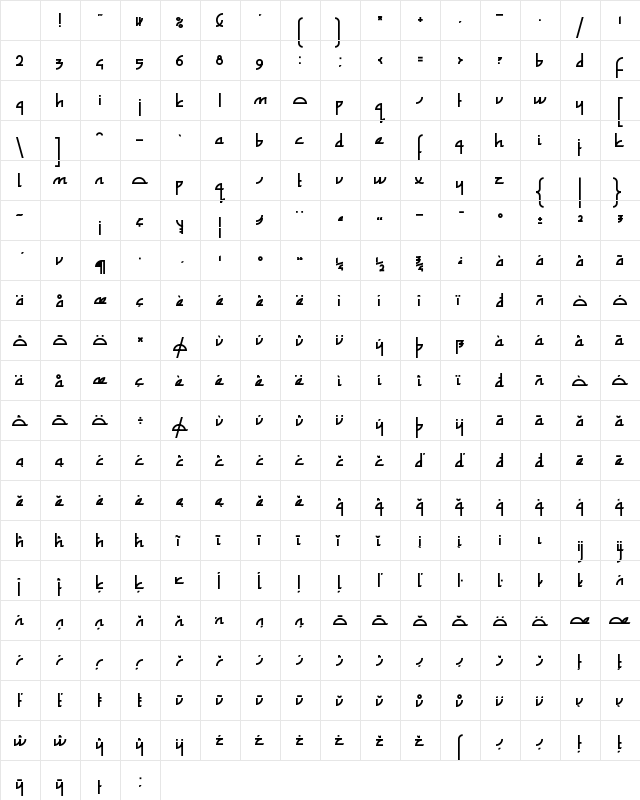
Complete Zefir Normal glyph index. Displaying only characters natively supported by Zefir Normal font.
Zefir is a composed and adaptable typeface that performs quietly and consistently across a wide range of design contexts.